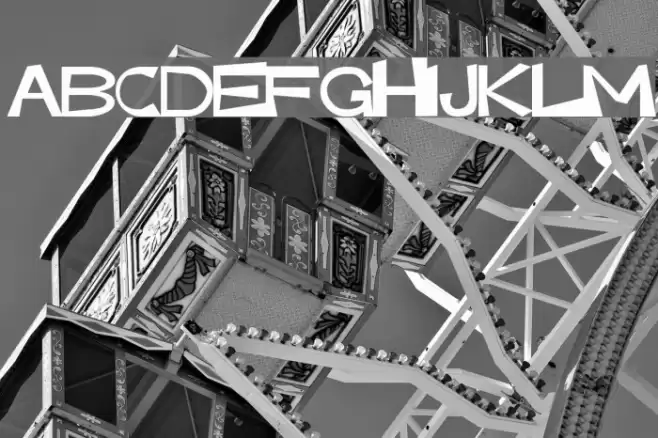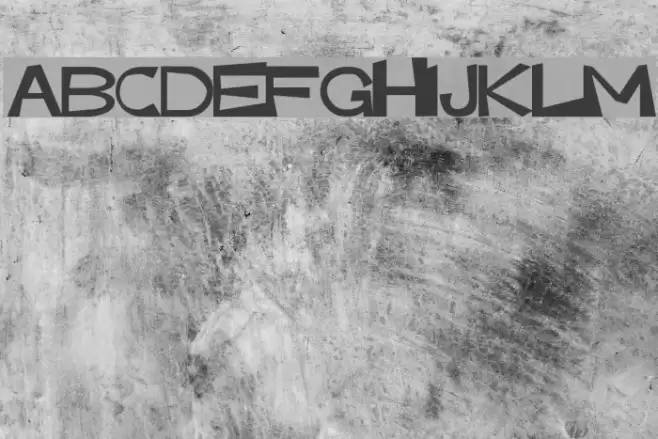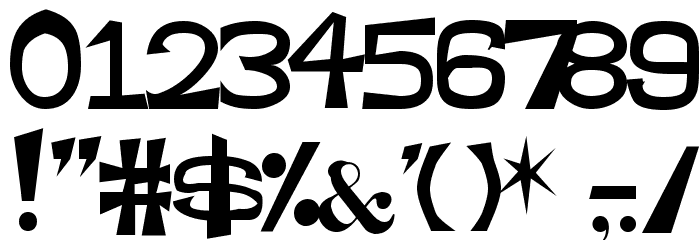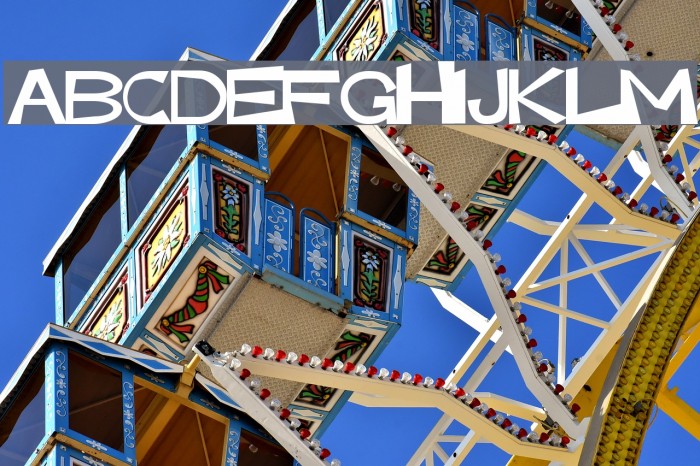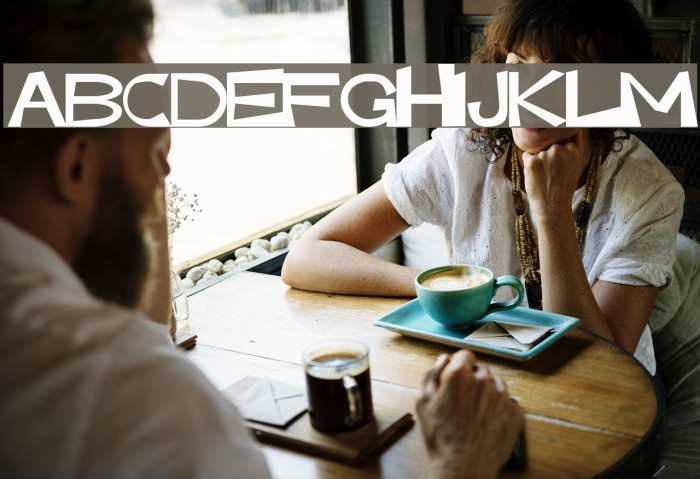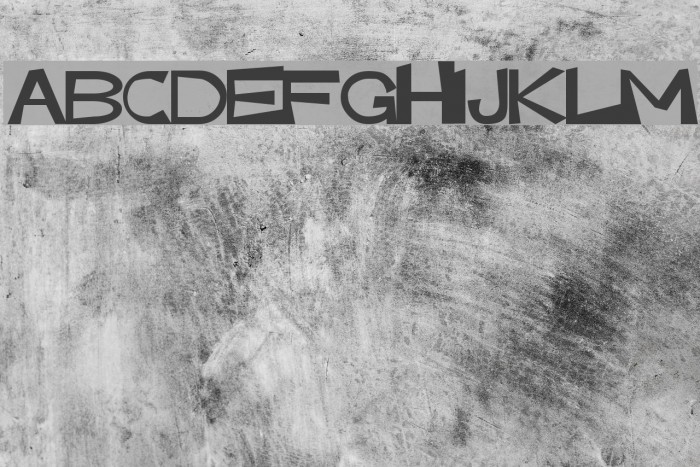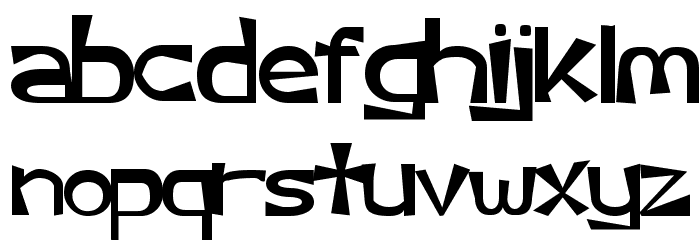
Very Assy Font
Very Assy Description
This font features a bold and dynamic style with a distinctly modern and edgy appearance. The characters are designed with sharp angles and varying line thicknesses, creating a sense of movement and energy. The uppercase letters are particularly striking, with some characters incorporating unique geometric elements that add to the font's distinctive look. The lowercase letters maintain a consistent style, complementing the uppercase set while offering a slightly softer edge. Numbers and special characters are equally bold, ensuring consistency across all elements. This font's unique style makes it ideal for projects that require a strong visual impact.
A bold, modern font with sharp angles and dynamic styling from Decorative fonts.